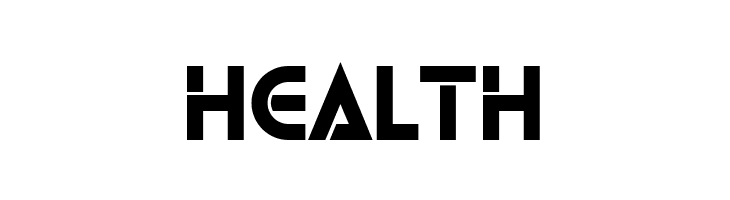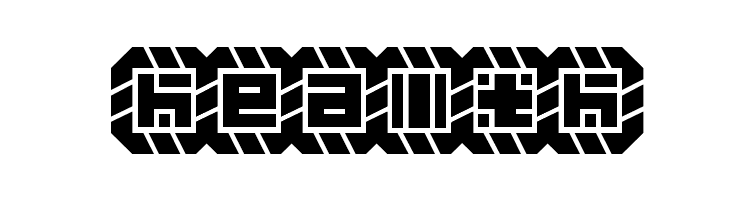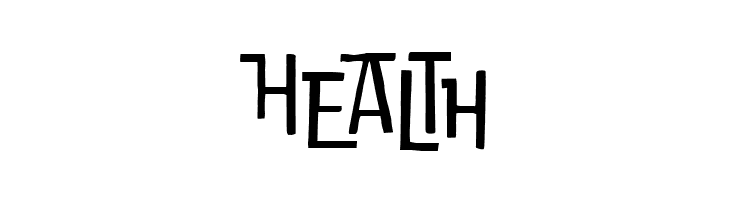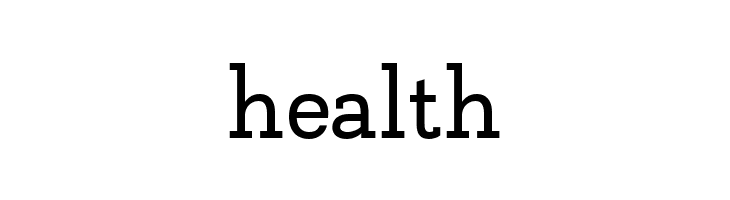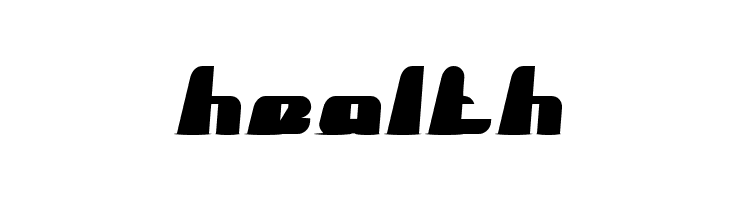
A bold, geometric font with a modern, futuristic design.
A flowing, cursive font with elegant loops and swirls.
A bold, geometric font with a chain-like, industrial design.
A bold, high-contrast serif font with an italic style, perfect for striking headlines.
A bold, slightly condensed font with a modern and vintage blend.
A modern serif font with balanced structure and elegant readability.
A bold slab serif font with strong, well-defined characters.
A bold serif font with a distinctive shadow effect, combining classic and modern styles.
A bold, italic script font with smooth curves and a lively appearance.
A bold, dynamic font with slanted characters and strong presence.